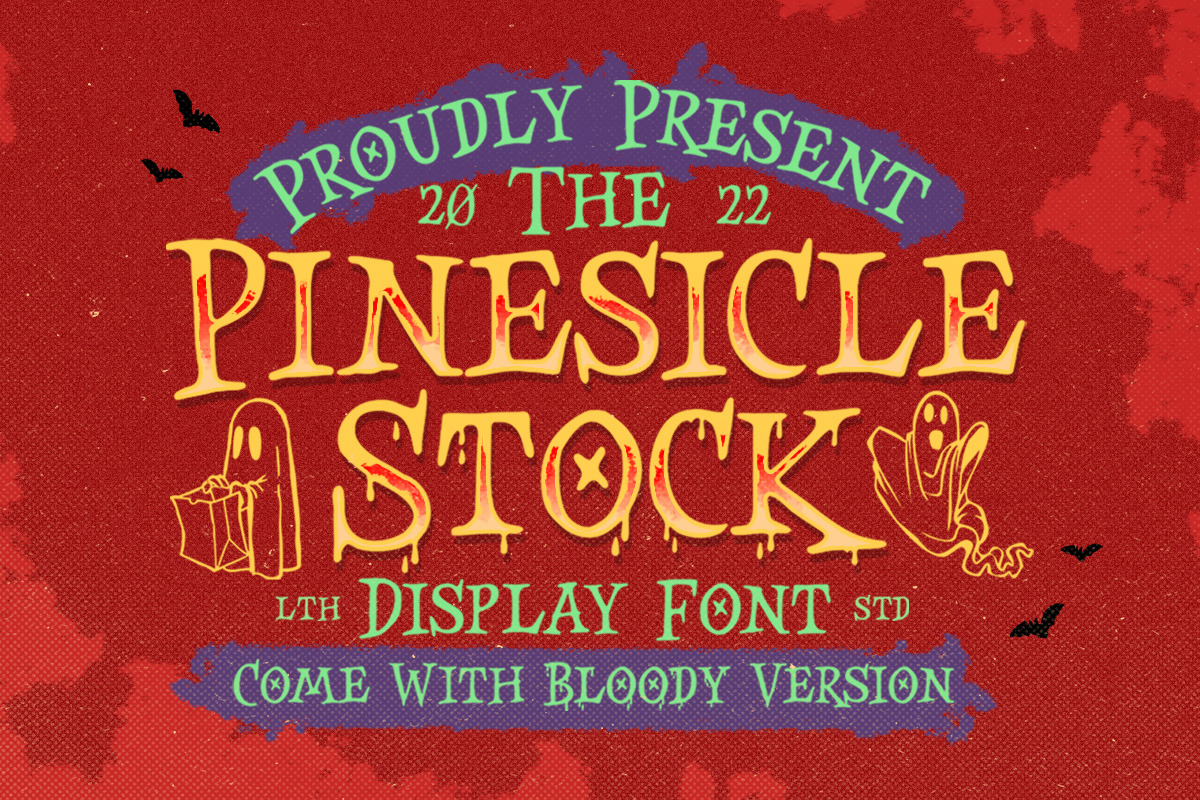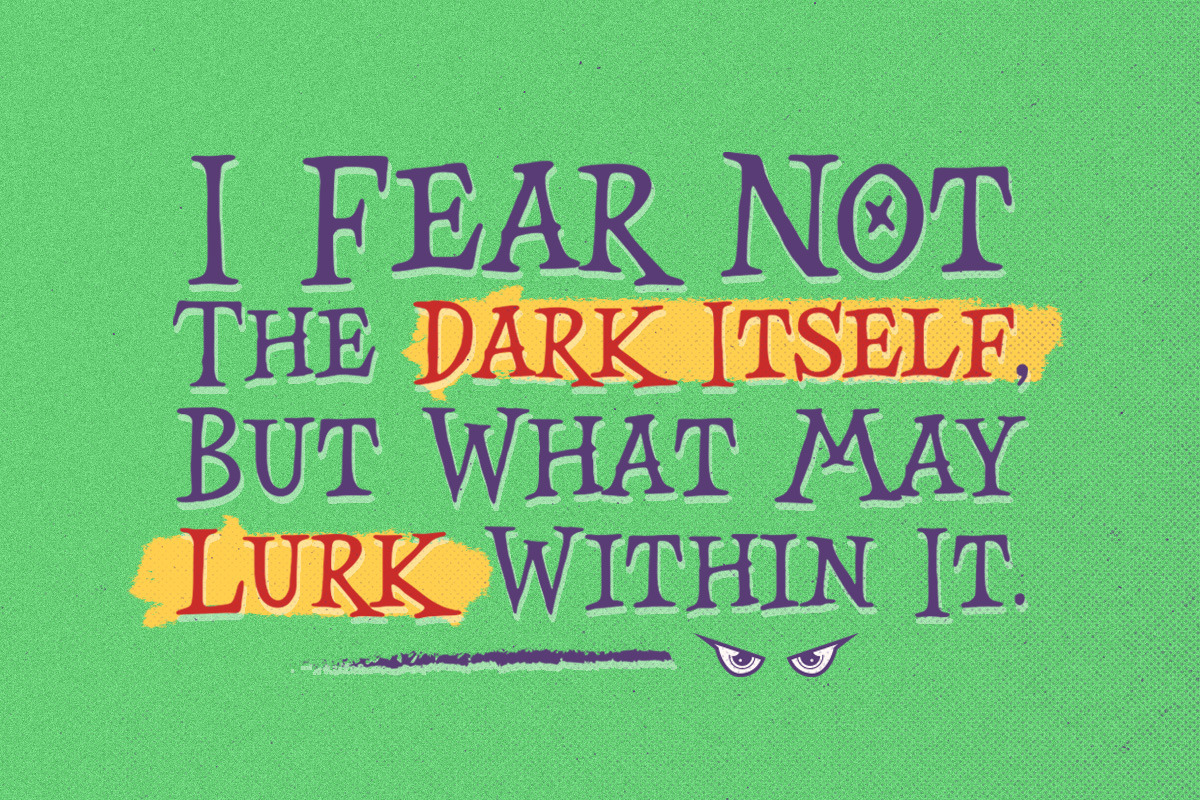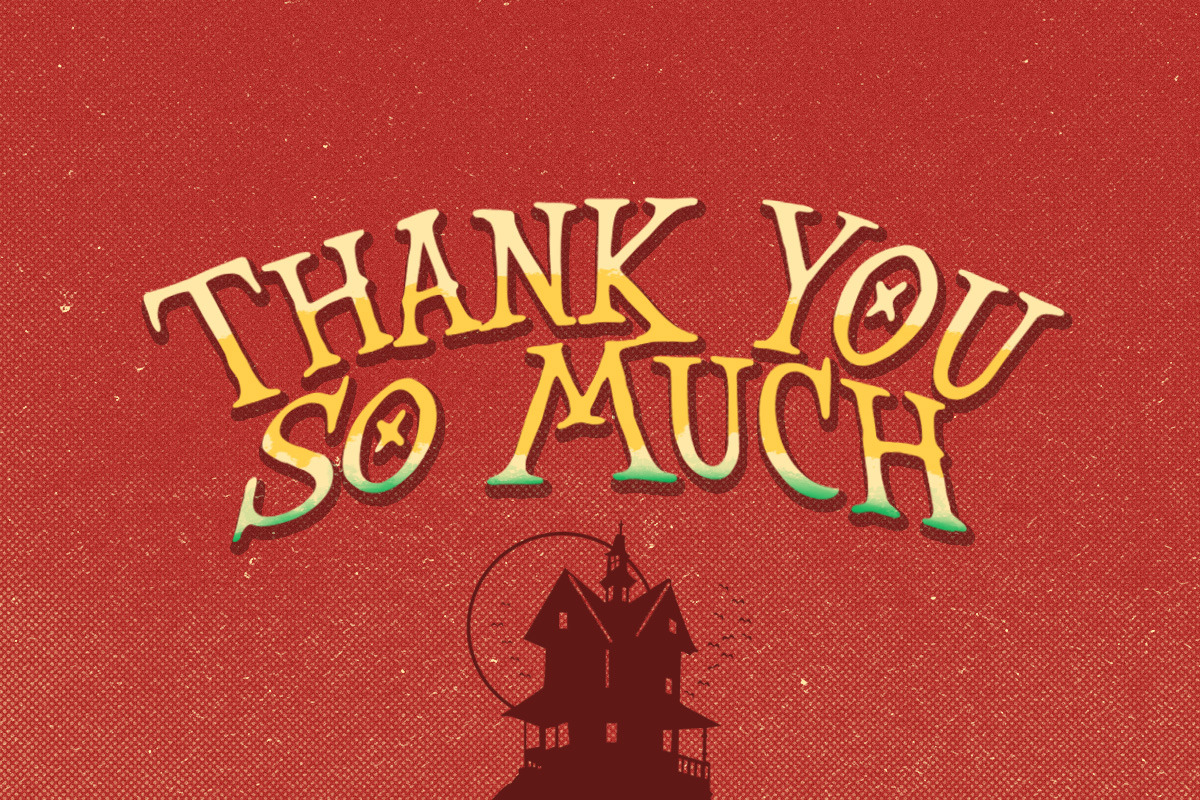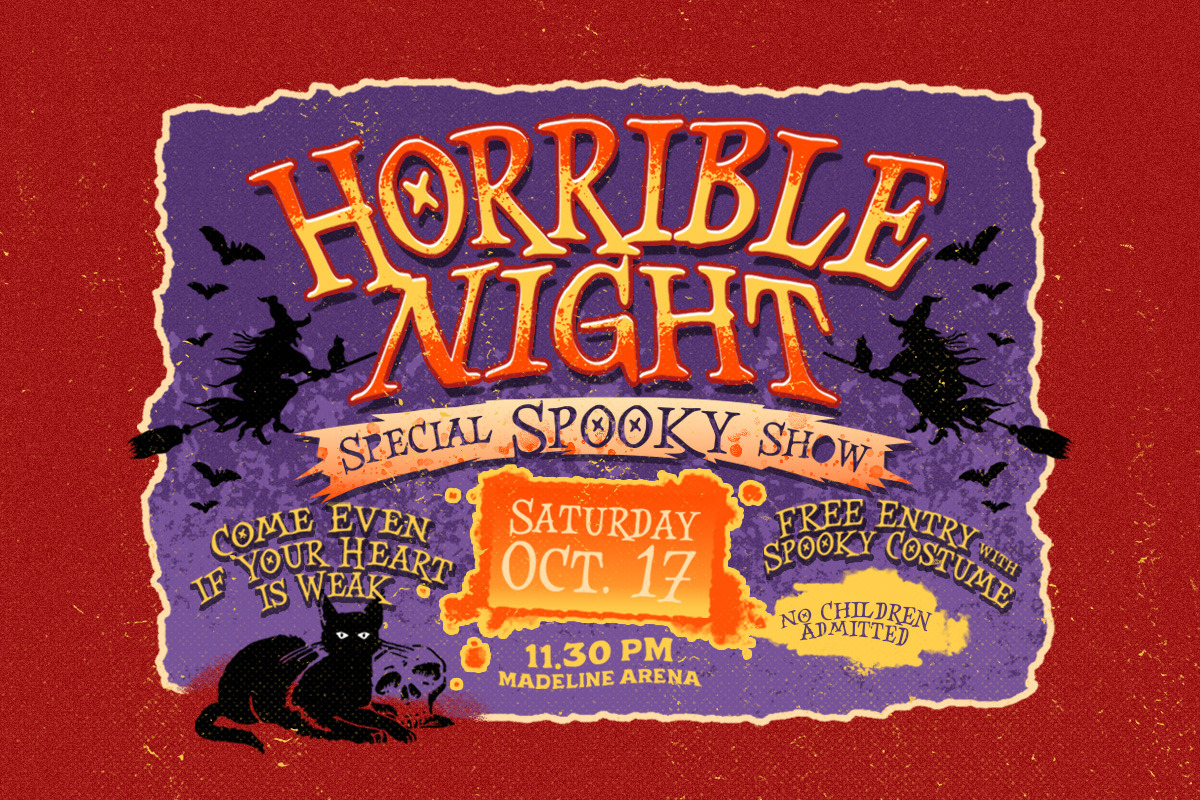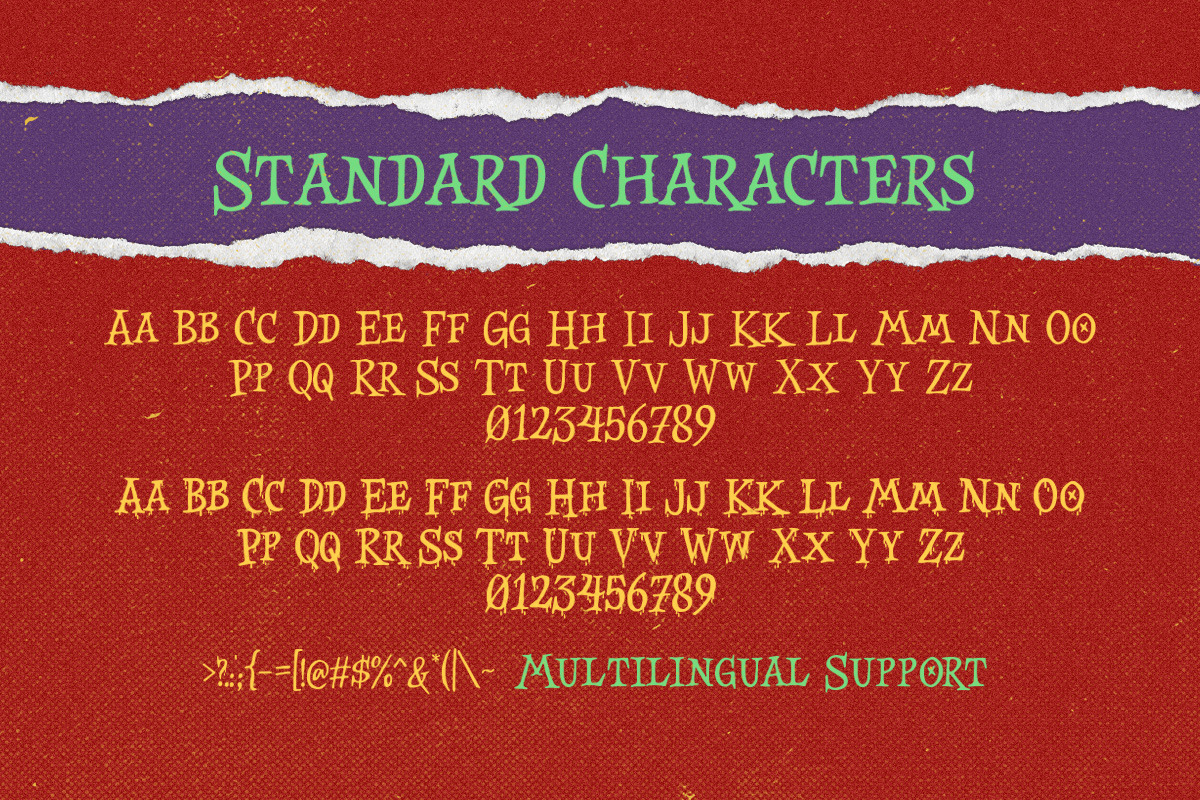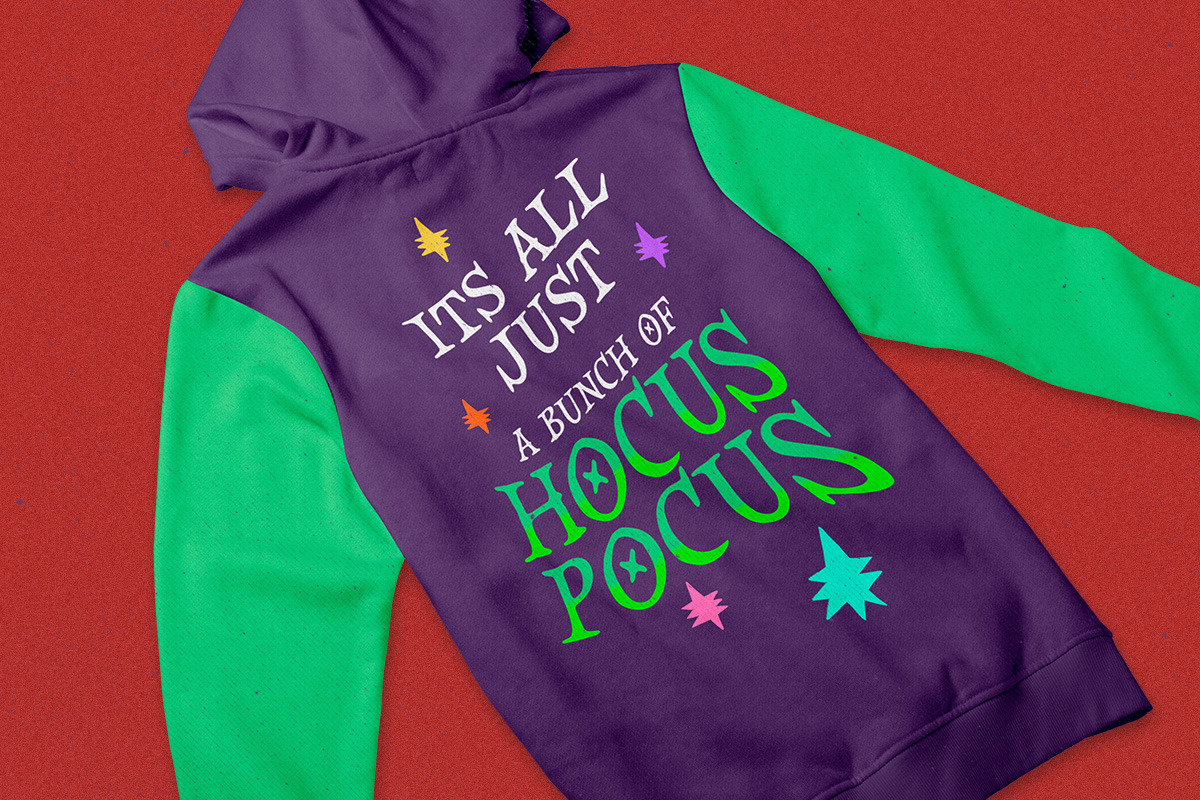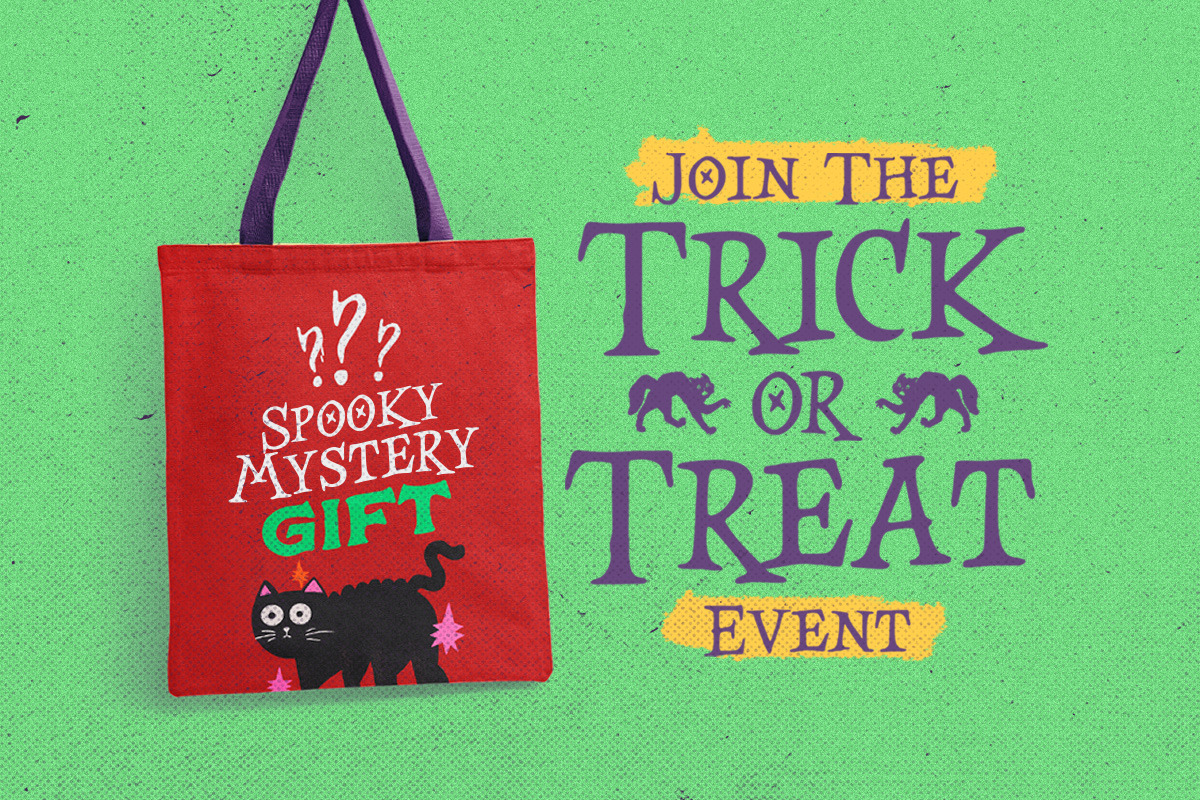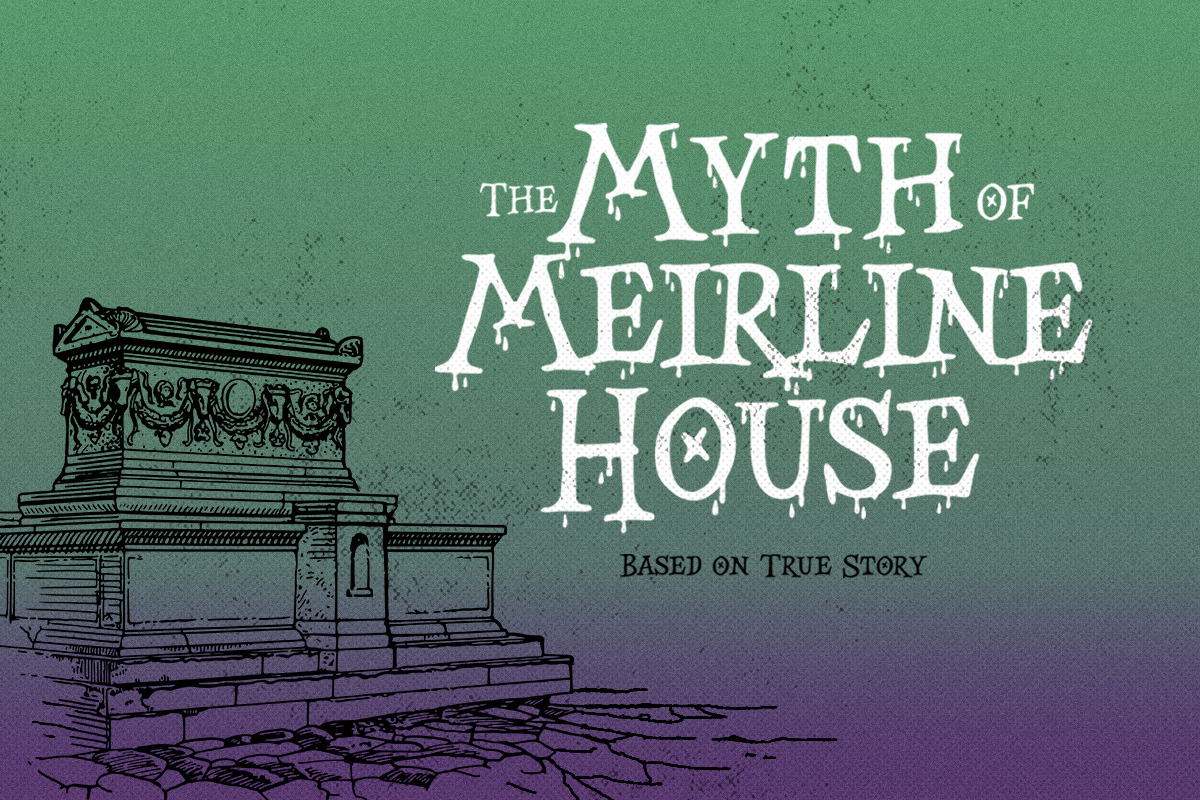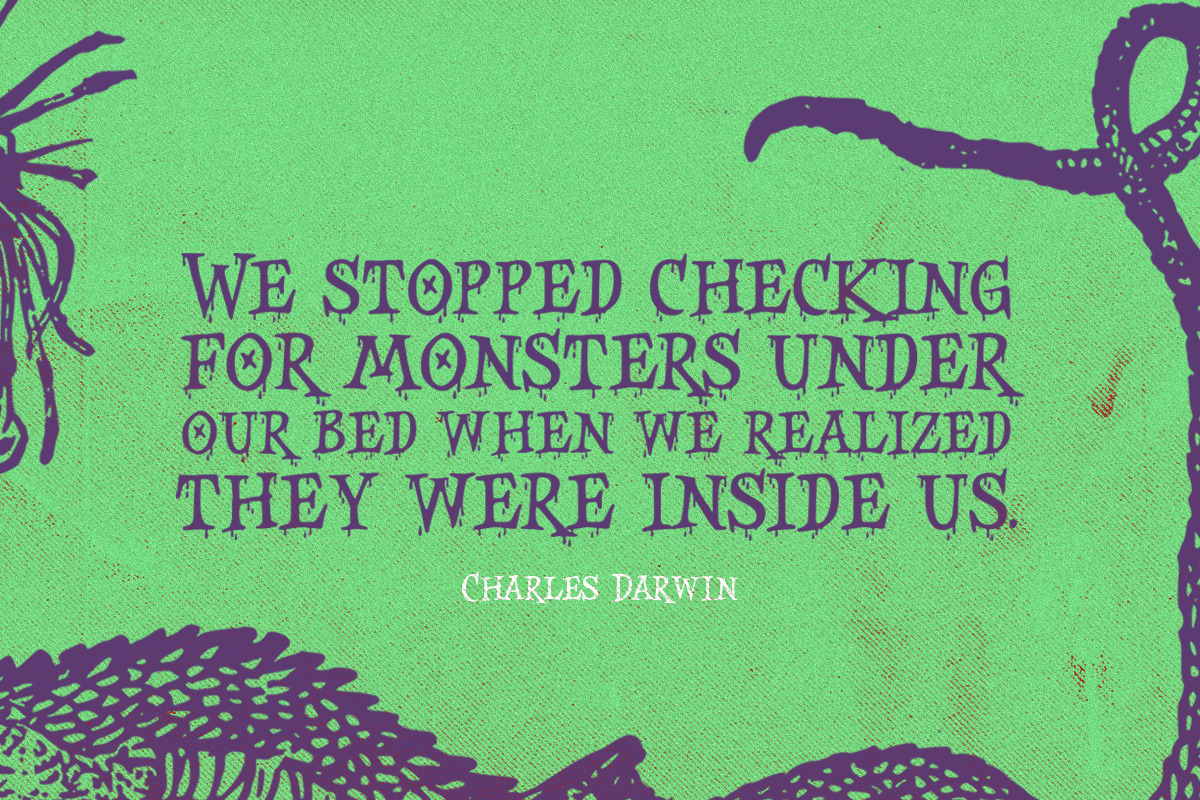
Pinesicle Stock - Fun Horror Font
Introducing, Pinesicle Stock - A display typeface font with horror theme but fun and playful at the same time. This font has unique looks very suitable for horror, thriller and spooky theme design. Comes with two style, regular and bloody. This font also perfectly made to be applied especially in logo, and the other various formal forms such as invitations, labels, logos, magazines, books, novels, labels or any type of advertising purpose.
- two styles, regular & bloody version
- uppercase and lowercase